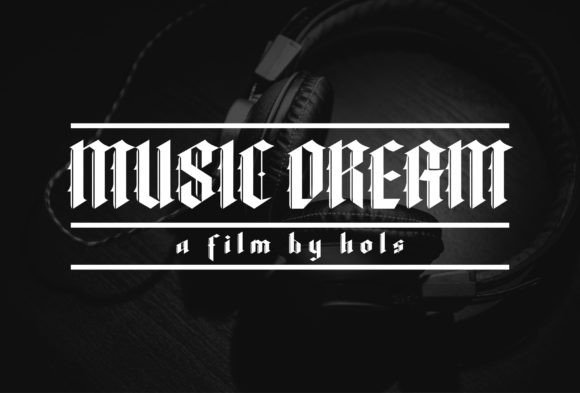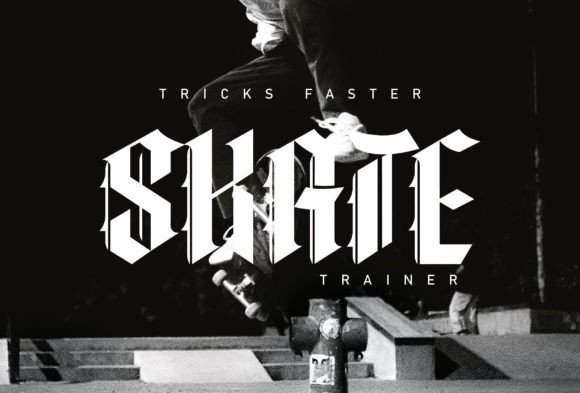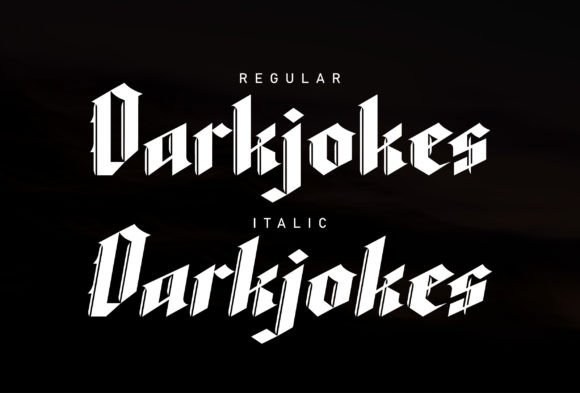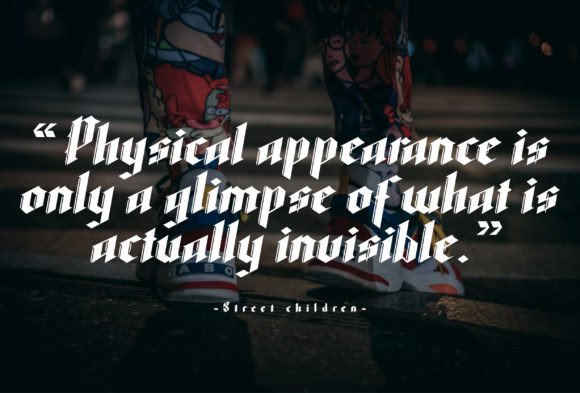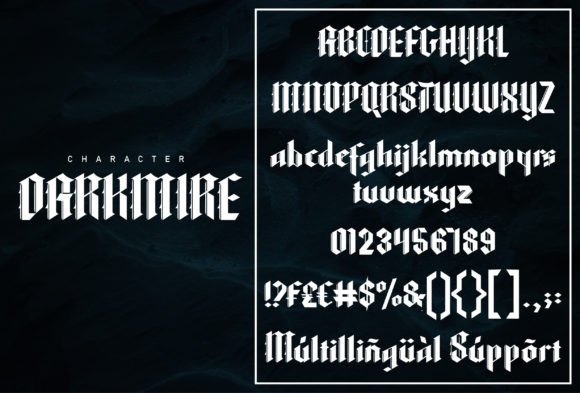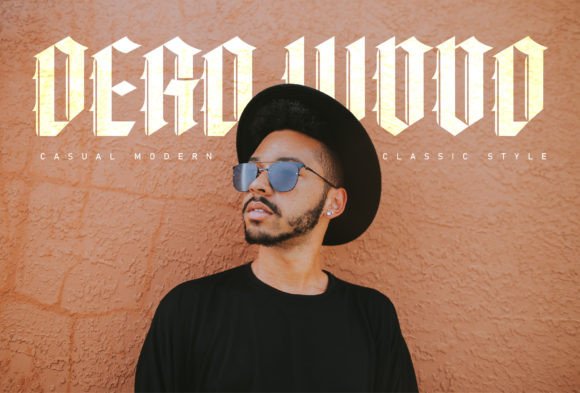
Unleashing the Power of Darkmire Font: A Masterpiece of Blackletter Design
In the world of typography, few fonts command attention like Darkmire, a stunning blackletter font that is a true masterpiece of design. With its bold and striking appearance, Darkmire is the perfect choice for designers and crafters looking to add a touch of drama and gravitas to their projects. In this article, we’ll explore the unique features of Darkmire and why it’s a must-have for anyone looking to make a statement with their designs.
The Art of Blackletter Typography
Blackletter typography is a style of lettering that originated in the Middle Ages, characterized by its dramatic and ornate letterforms. This style of typography was popularized during the Gothic period and was often used for formal documents, such as certificates, diplomas, and titles. Darkmire is a modern interpretation of this classic style, with intricate details and ornate flourishes that create a powerful visual impact.
The Unique Features of Darkmire Font
Darkmire is more than just a font – it’s an experience. Its bold and striking design commands attention, making it perfect for designs that require a touch of drama and gravitas. Here are some of the unique features that make Darkmire a standout font:
- Ornate letterforms: Darkmire’s letterforms are intricately designed with ornate details that create a sense of luxury and sophistication.
- Intricate details: The font features intricate details, such as flourishes and swashes, that add to its dramatic and striking appearance.
- Bold and striking design: Darkmire is a font that commands attention, making it perfect for designs that require a bold and striking look.
Perfect for Dramatic Designs
Darkmire is the perfect choice for designers and crafters looking to add a touch of drama and gravitas to their projects. Whether you’re designing a logo, a poster, or a certificate, Darkmire is sure to make a statement. Here are some design ideas that showcase the power of Darkmire:
- Logos and branding: Use Darkmire to create a bold and striking logo that commands attention.
- Posters and flyers: Add a touch of drama and gravitas to your posters and flyers with Darkmire’s ornate letterforms.
- Certificates and diplomas: Darkmire is perfect for creating formal documents, such as certificates and diplomas, that require a touch of luxury and sophistication.
Why Designers and Crafters Love Darkmire
Darkmire has quickly become a favorite among designers and crafters, and for good reason. Here are some reasons why:
- Unique and distinctive: Darkmire is a truly unique and distinctive font that sets itself apart from other fonts.
- High-quality design: Darkmire is a high-quality font that is designed with precision and attention to detail.
- Versatile: Darkmire can be used for a wide range of design projects, from logos and branding to posters and certificates.
In conclusion, Darkmire is a true masterpiece of blackletter design that commands attention with its bold and striking appearance. With its ornate letterforms and intricate details, Darkmire is the perfect choice for designers and crafters looking to add a touch of drama and gravitas to their projects. Whether you’re designing a logo, a poster, or a certificate, Darkmire is sure to make a statement. So why settle for an ordinary font when you can make a statement with Darkmire?
Overall, Darkmire font is a showstopper that is sure to elevate your designs to the next level. Its unique and distinctive design, high-quality craftsmanship, and versatility make it a must-have for any designer or crafter looking to make a statement.